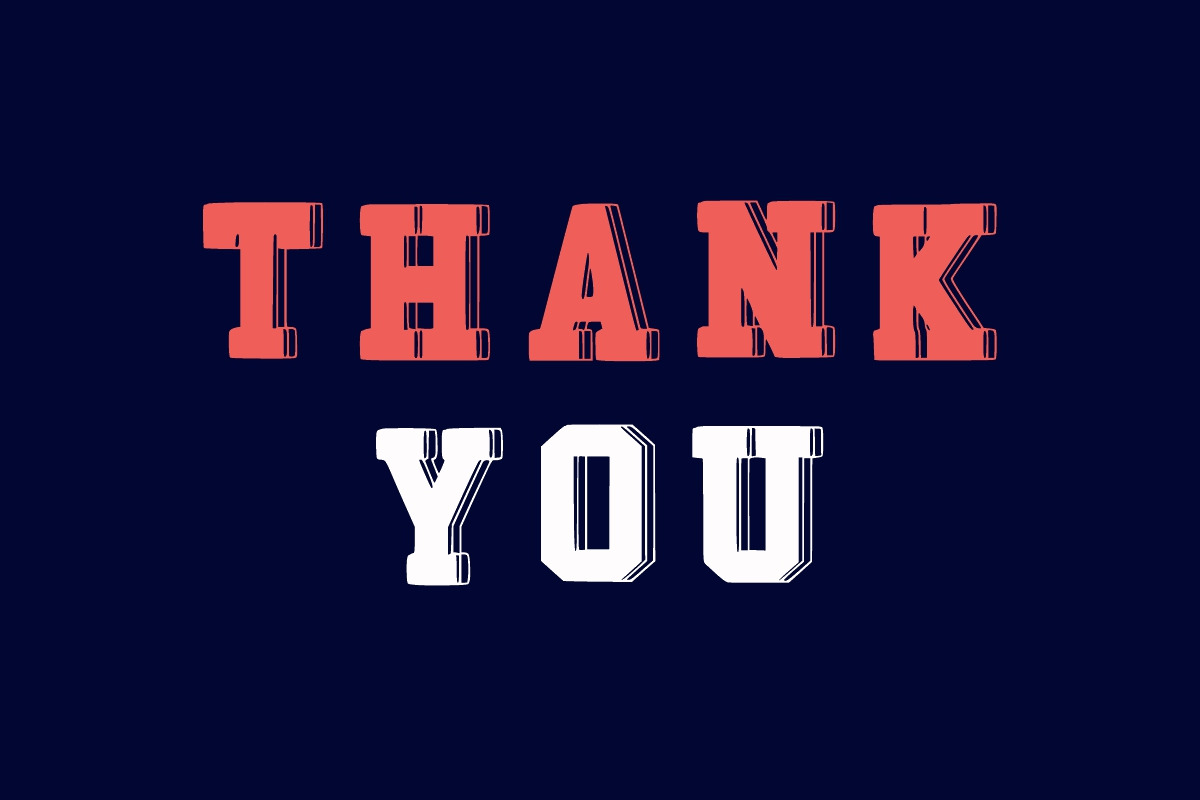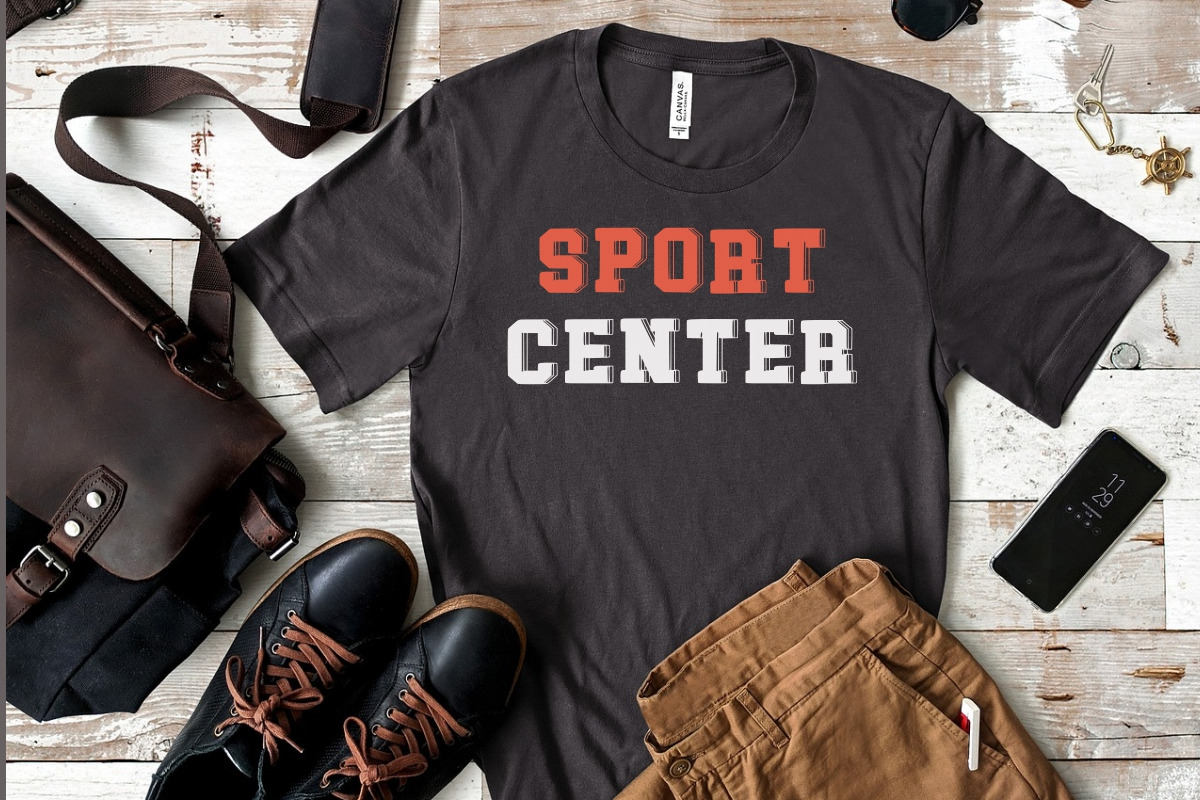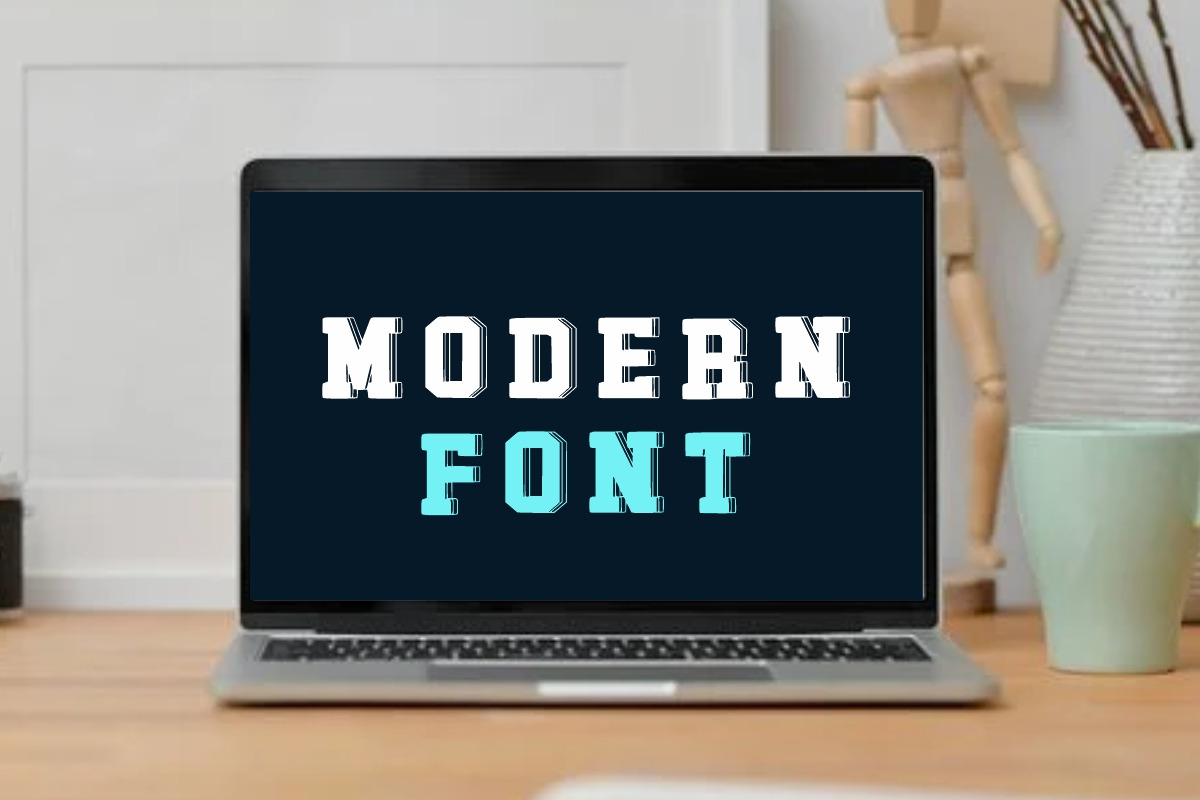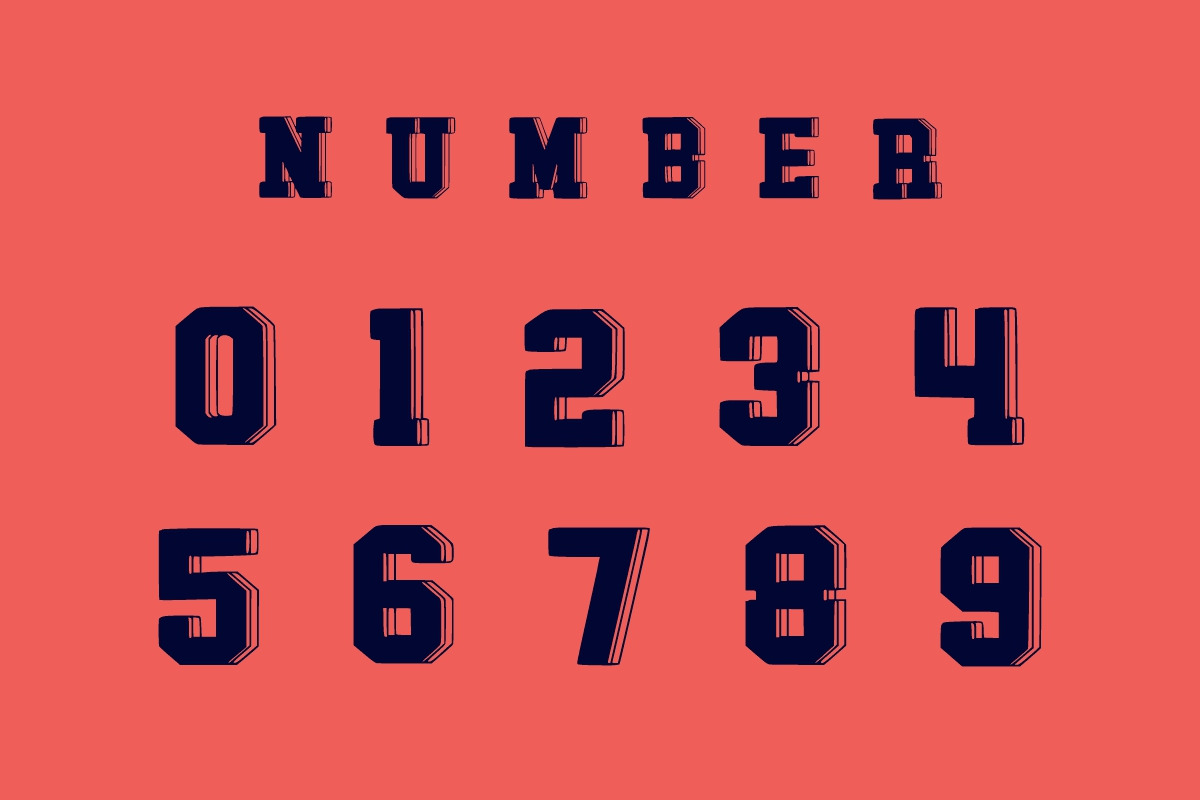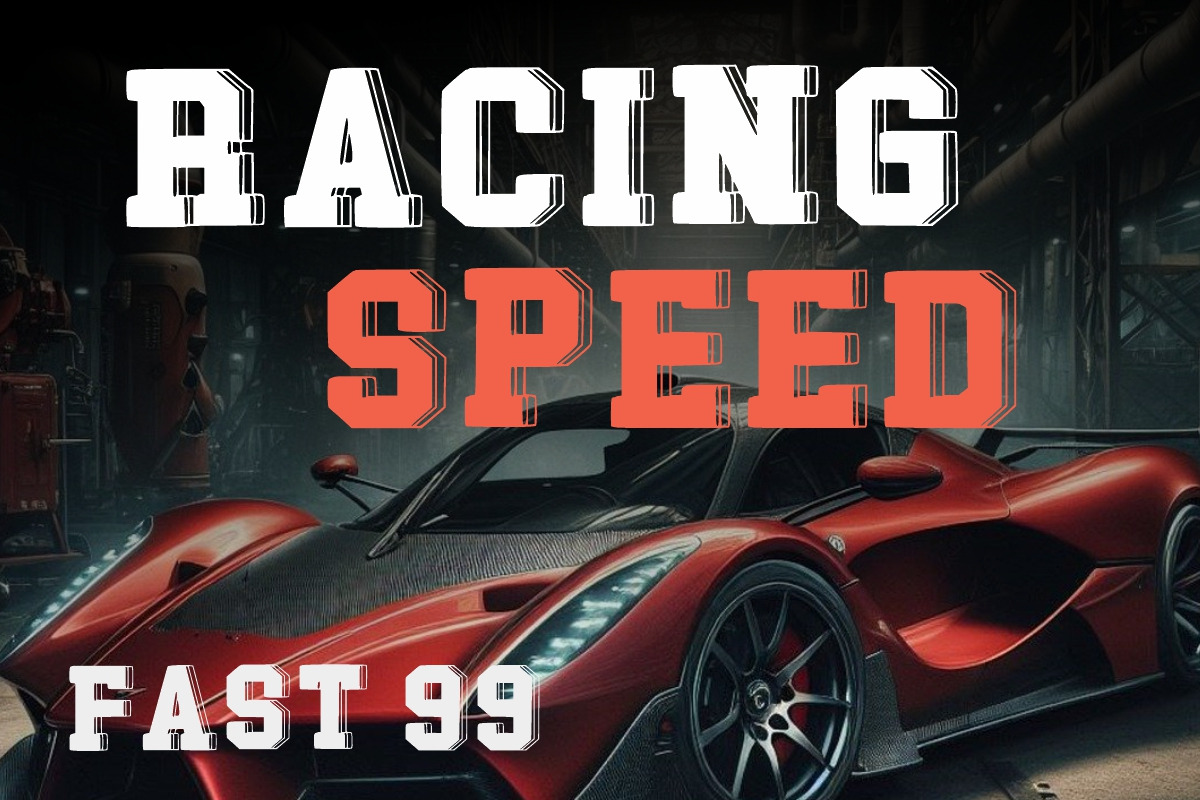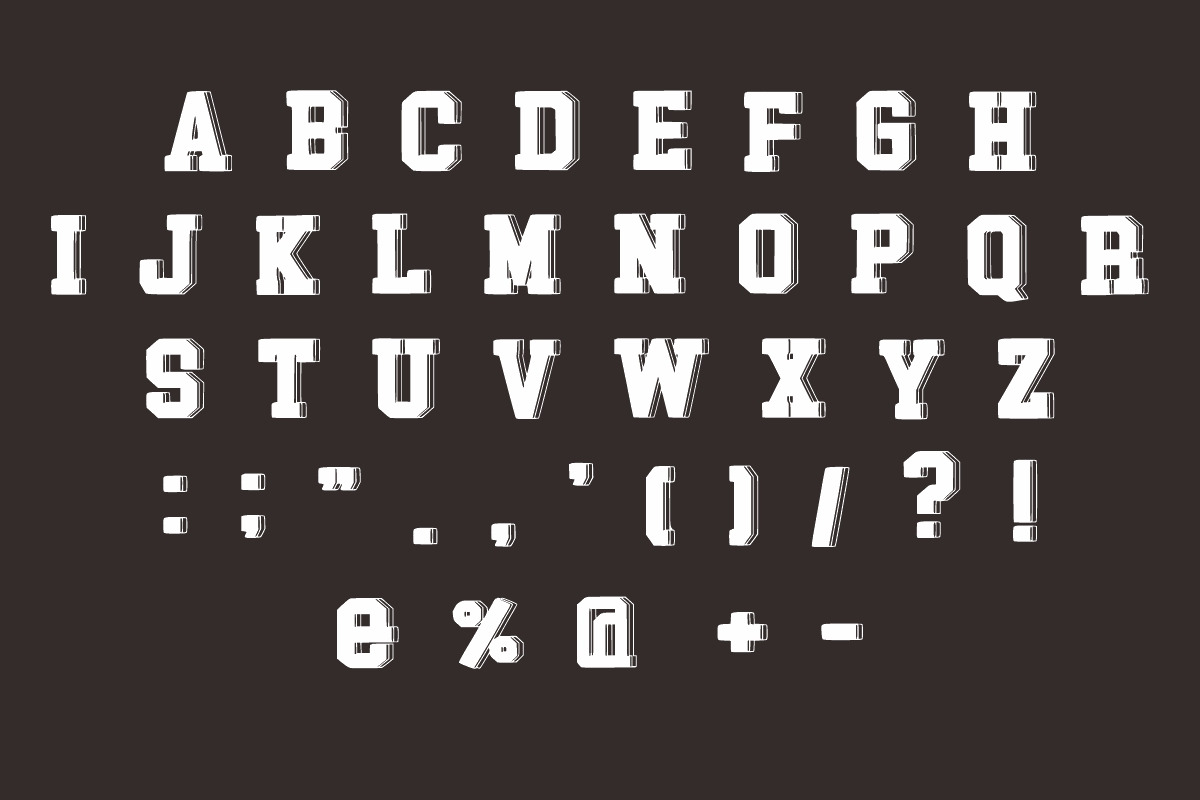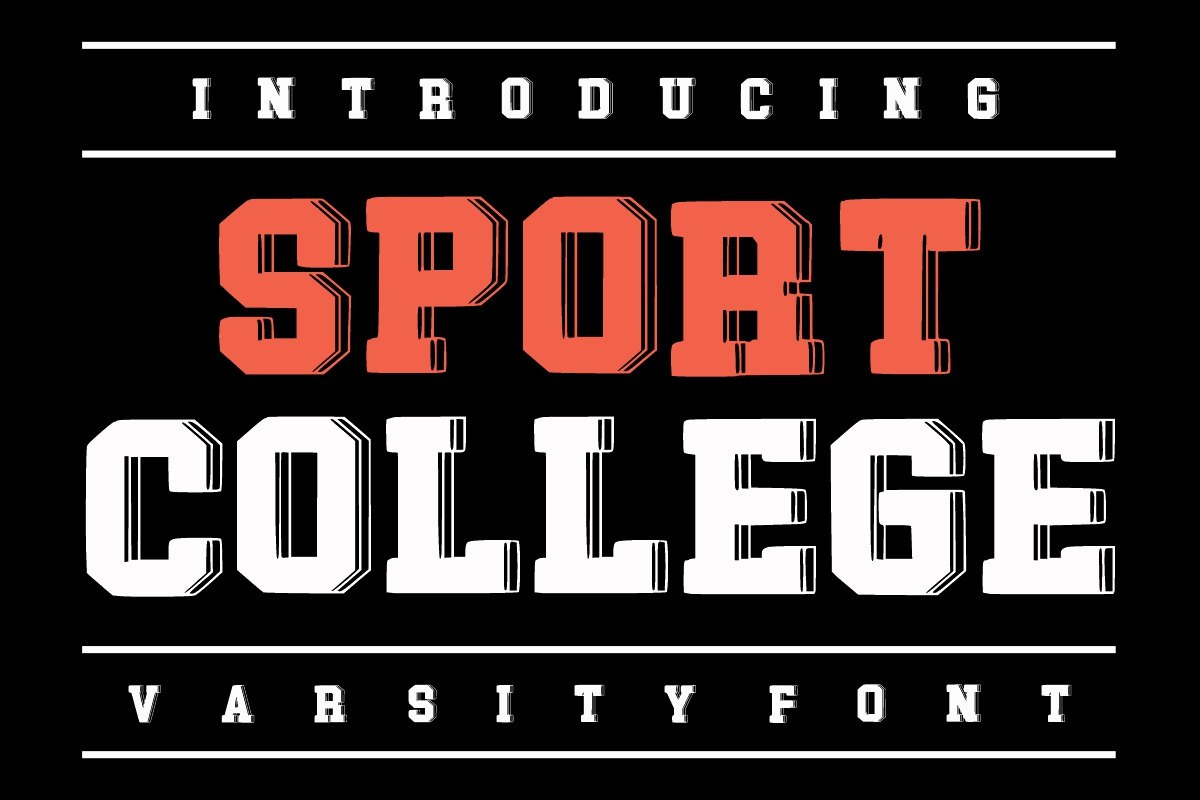
SPORT COLLEGE
SPORT COLLEGE is a modern and bold display font. It is suitable for any winter and holiday branding project, product packaging, invitation, quote, t-shirt, label, poster, text effect, label, and logo that you wish to develop.